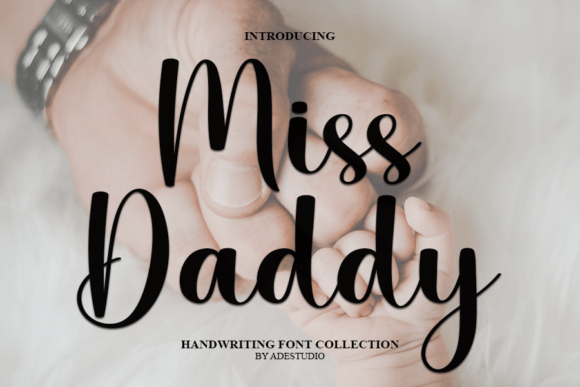
Introducing Miss Daddy Font - The Exquisite Script Blessing Your Digital Creations!
In a world saturated with monotonous fonts, Miss Daddy Font emerges as a captivating script, a splash of creativity that sets your designs apart. A creation of the renowned Ade Studio, Miss Daddy is an enchanting handwritten font, meticulously crafted to elevate your designs to new heights of elegance and charm.
With its graceful strokes and fluid curves, Miss Daddy is the perfect choice for those who seek to add a touch of personality and flair to their creative endeavors. Its delicate appearance adds a dash of femininity and sophistication, making it an ideal font for wedding invitations, greeting cards, logos, and other projects that demand a touch of class and sophistication.
Delve into the world of Miss Daddy and explore its boundless versatility. Its refined characters dance across the page, lending an air of beauty and refinement to any project they adorn. Miss Daddy's versatility extends from formal settings such as resumes and CVs to more casual applications like social media posts and blog designs. It seamlessly adapts to your creative vision, adding a touch of elegance wherever it's employed.
At Miss Daddy's core lies a deep understanding of the power of typography. Its creators have painstakingly designed each letterform to ensure perfect readability and visual appeal. The result is a font that is both aesthetically pleasing and highly functional, allowing your message to shine through with clarity and impact.
Whether you're a seasoned designer or just starting to explore the world of typography, Miss Daddy is the perfect font to ignite your creativity and take your designs to the next level. Its intuitive design makes it easy to use, even for beginners, while its endless possibilities cater to the most discerning creative minds.